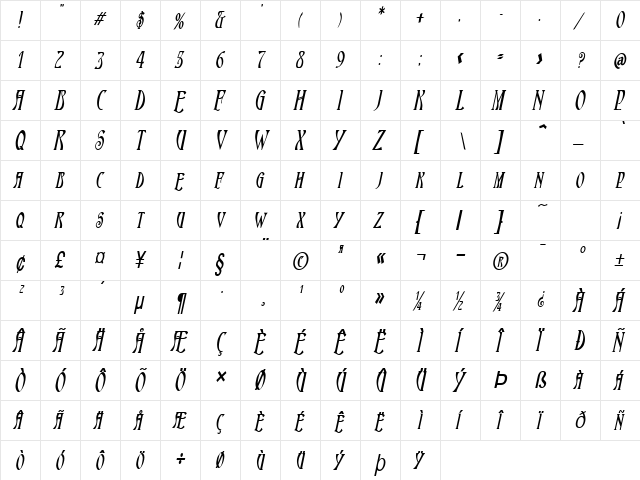
Nouveau-Condensed Bold Italic Font Preview
Design Context for Nouveau-Condensed Typeface
Nouveau-Condensed takes a measured approach to typography — its balanced proportions and neutral character make it a reliable workhorse for both digital and print work. The slanted form adds forward momentum and visual energy. The heavy weight commands attention and anchors typographic hierarchies. Its narrow stance lets it pack a punch even in space-constrained designs.
Pro Tip: Try Nouveau-Condensed for annotation and caption copy alongside an upright companion — the contrast in angle creates a dynamic but ordered typographic system.